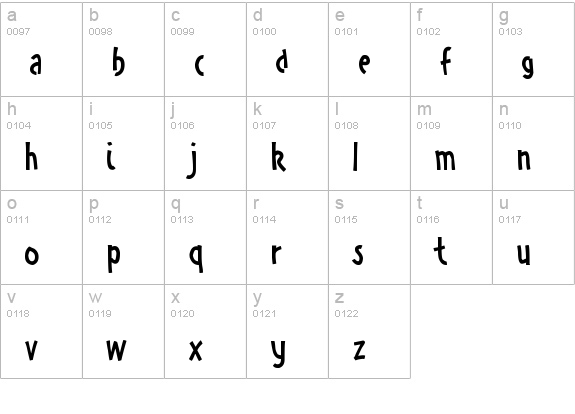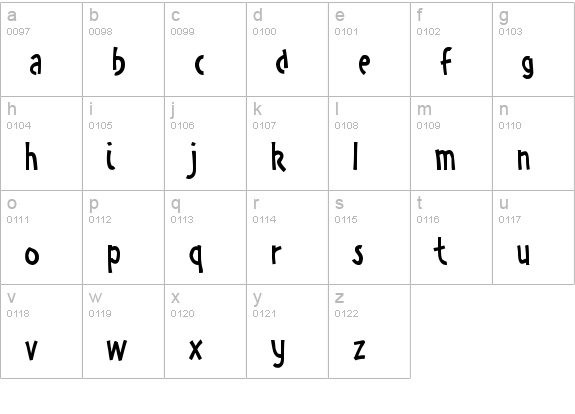
Zany Races font is a playful and energetic typeface that exudes a sense of fun and whimsy. With its quirky and unique letterforms, Zany Races is sure to add a touch of creativity to any design project. Whether you're looking to create eye-catching headlines, fun invitations, or playful branding, this font is the perfect choice. The best part is that Zany Races font is available for free download at FontsMarket.com. This means you can easily access this delightful typeface and incorporate it into your designs without any cost. Embrace the playful spirit of Zany Races font and let your creativity run wild with this free and charming typeface.